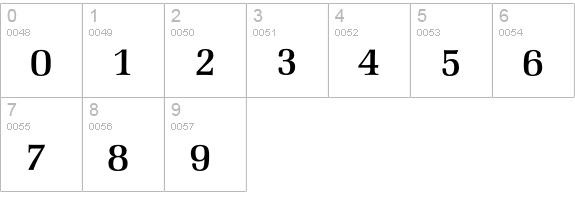
Marseille-Medium Font Details
Marseille-Medium is a balanced, medium-weight variant in the Marseille typeface family \xE2\x80\x94 well suited to sub-headlines, navigation, and balanced editorial work.
Marseille-Medium font is a versatile and modern typeface that exudes elegance and sophistication. Its clean lines and balanced proportions make it ideal for a wide range of design projects, from branding and advertising to editorial and packaging. The medium weight of the font strikes the perfect balance between boldness and readability, making it suitable for both headlines and body text. With its timeless appeal, Marseille-Medium font adds a touch of class to any design. Its smooth curves and refined letterforms create a harmonious visual experience that captivates the reader's attention. Whether used in print or digital media, this font effortlessly conveys a sense of professionalism and style. One of the standout features of Marseille-Medium font is that it is available for free. Designers and creatives can easily download this font from FontsMarket.com, a reputable online platform for quality fonts. This means that anyone can access and utilize this beautiful typeface without any cost, making it a valuable resource for both personal and commercial projects. The designers behind Marseille-Medium font carefully crafted each character to ensure optimal legibility and aesthetic appeal. The attention to detail is evident in every stroke, resulting in a font that is not only visually stunning but also highly functional. Whether used for headings, subheadings, or body text, Marseille-Medium font offers a level of clarity and readability that is essential for effective communication. Overall, Marseille-Medium font is a remarkable choice for designers seeking a modern and versatile typeface that effortlessly combines elegance with functionality. With its free availability on FontsMarket.com, this font becomes an indispensable tool in the creative arsenal of any designer or typographer. Download Marseille-Medium font today and experience the transformative power of this exceptional typeface.